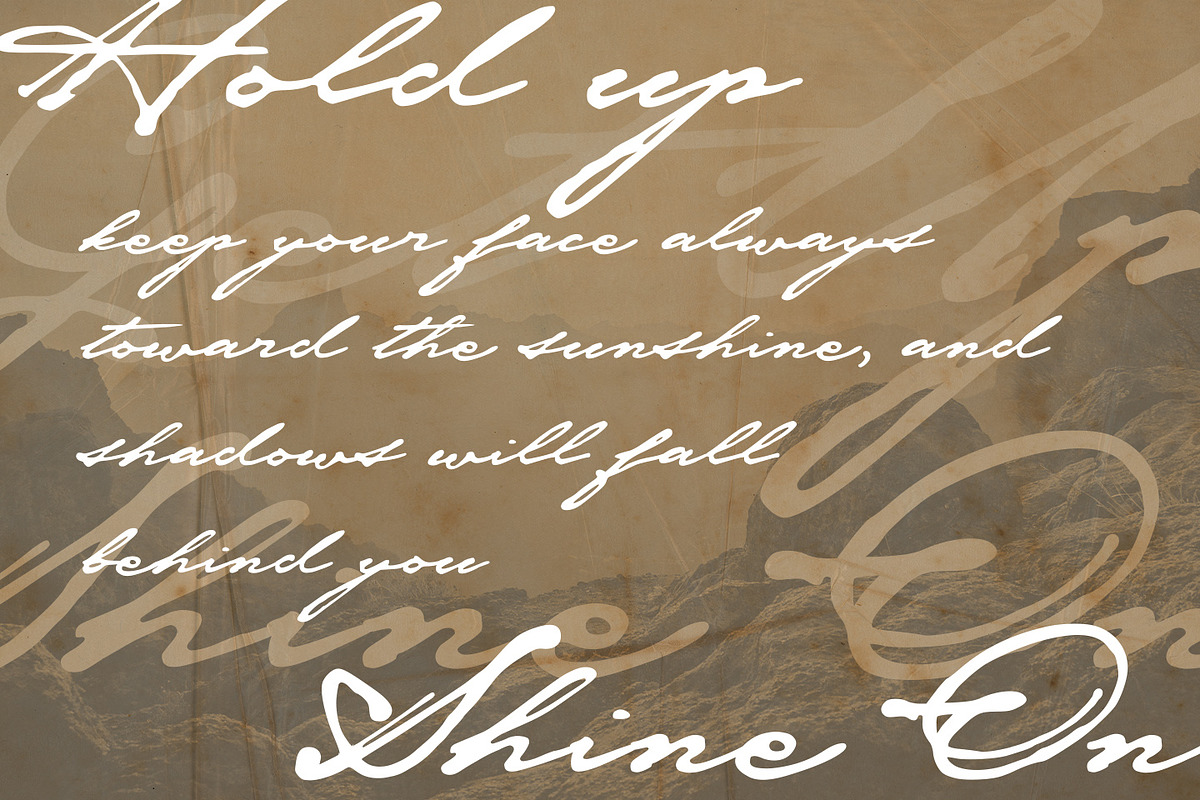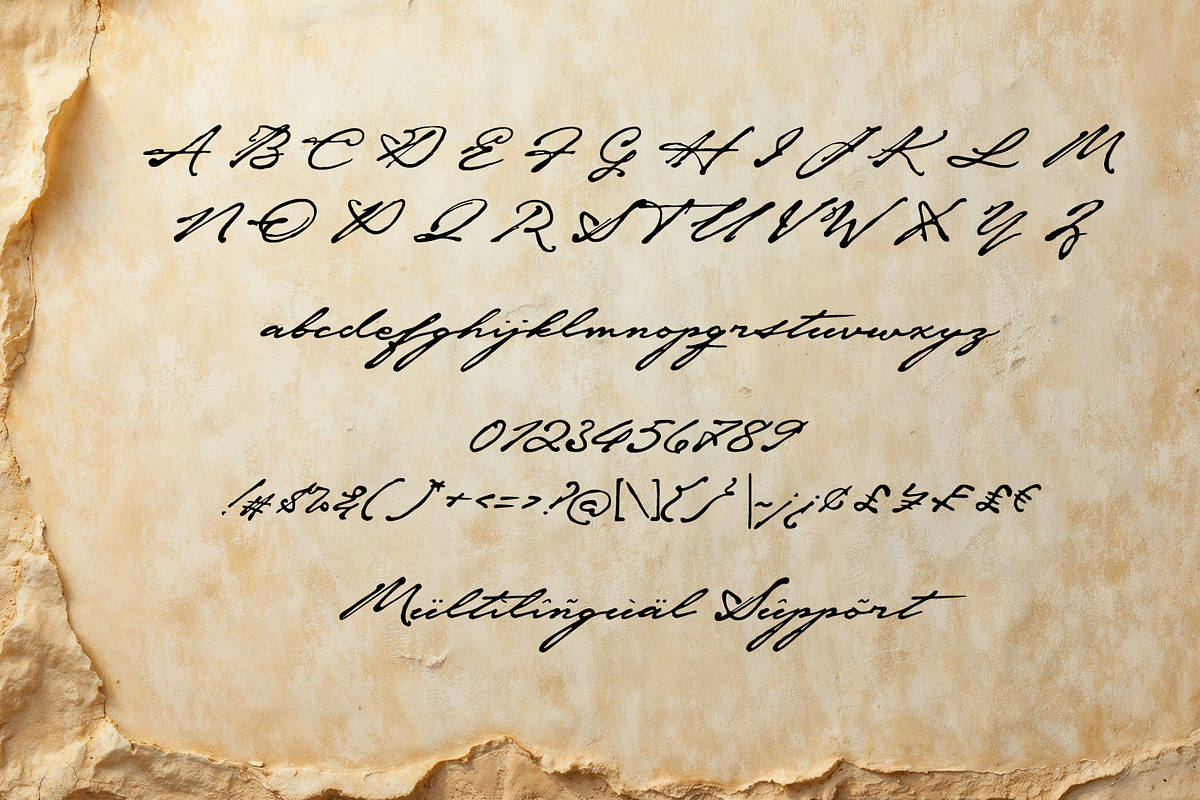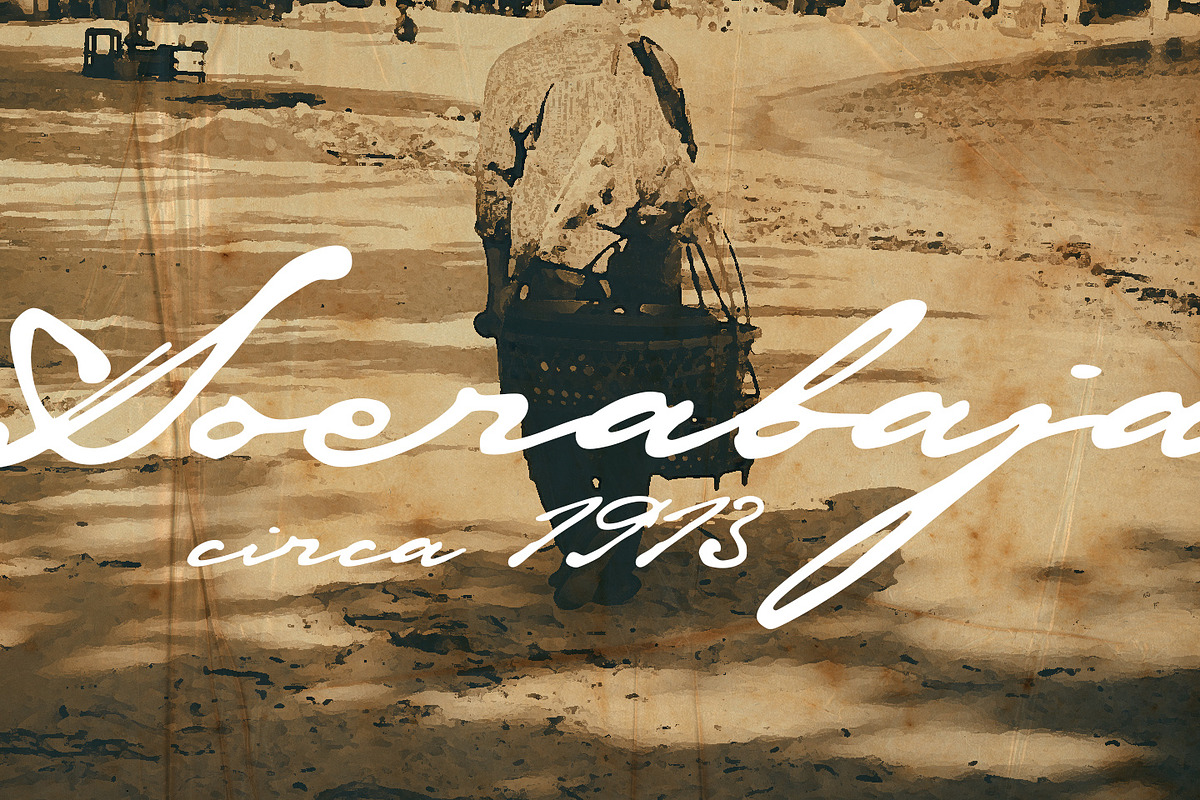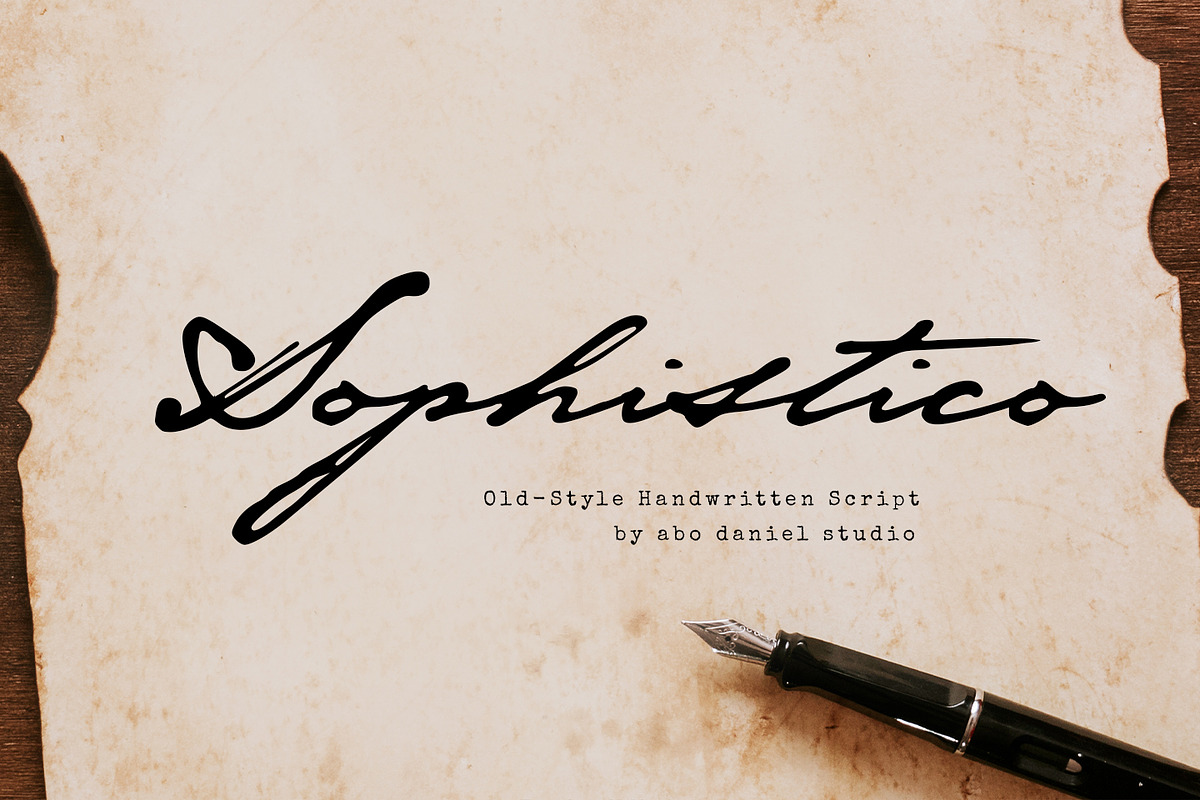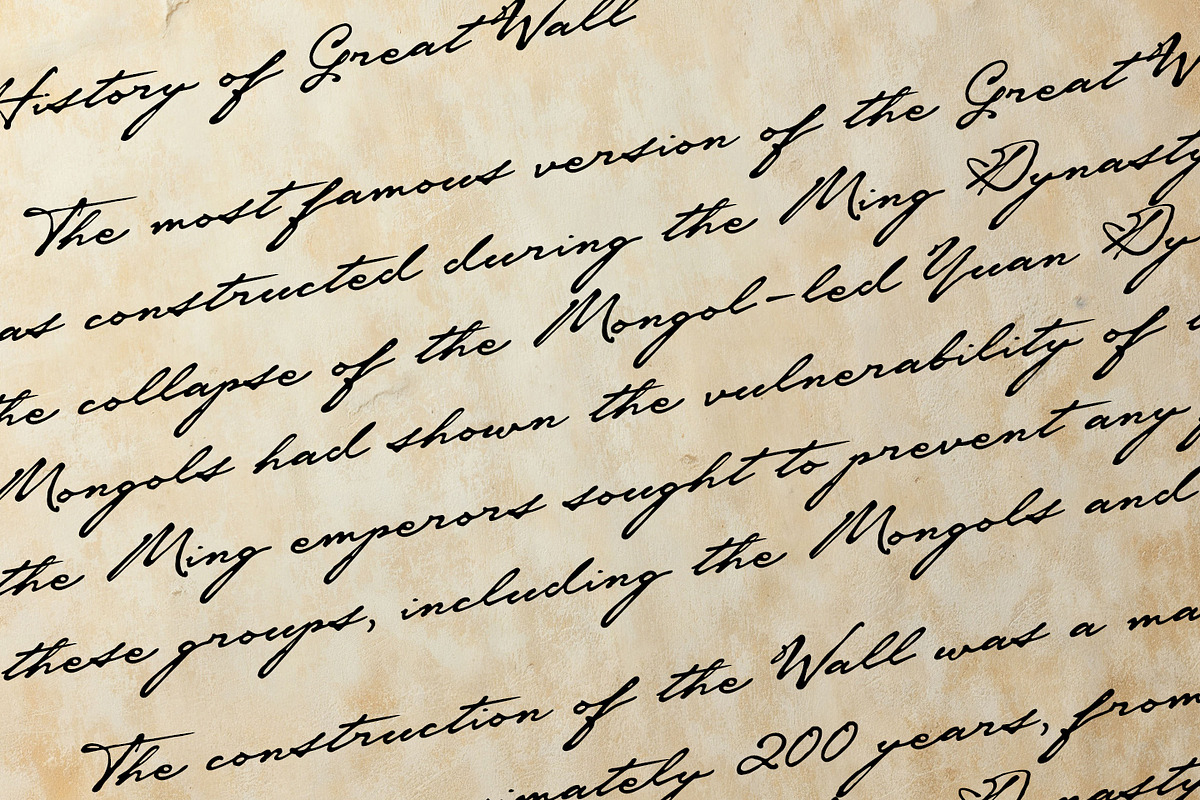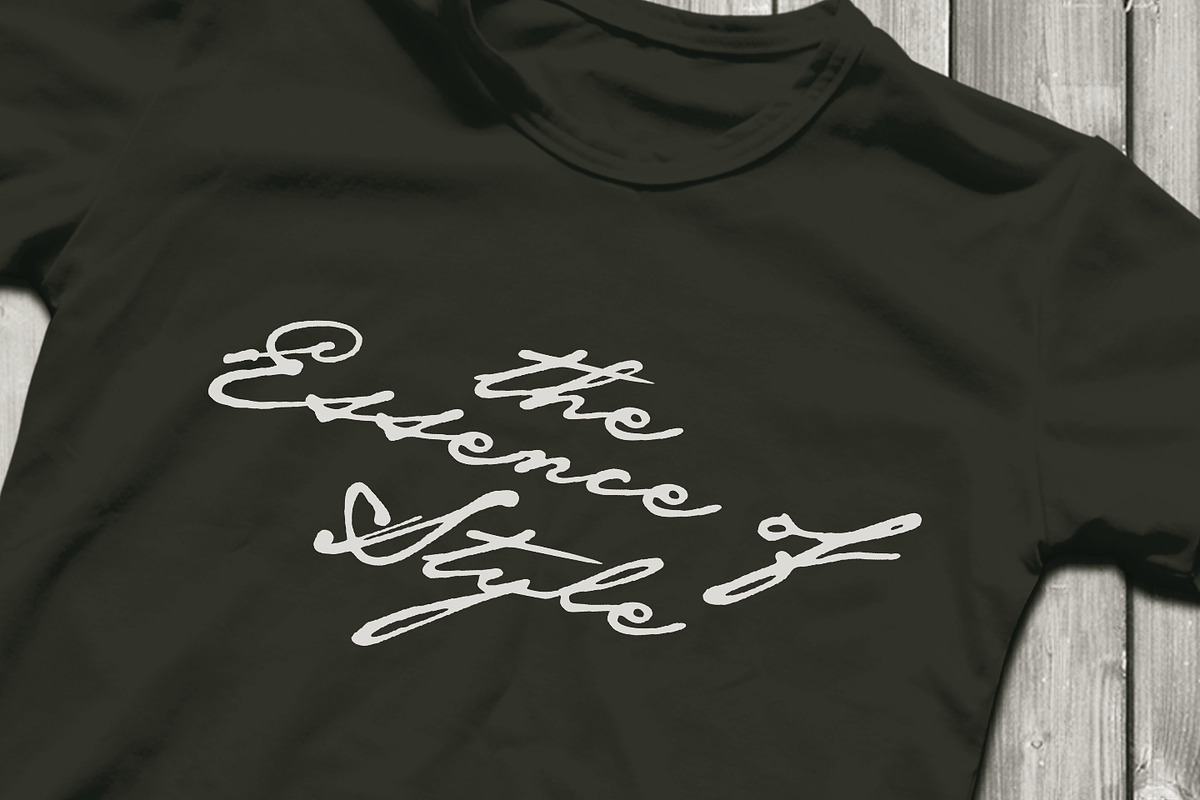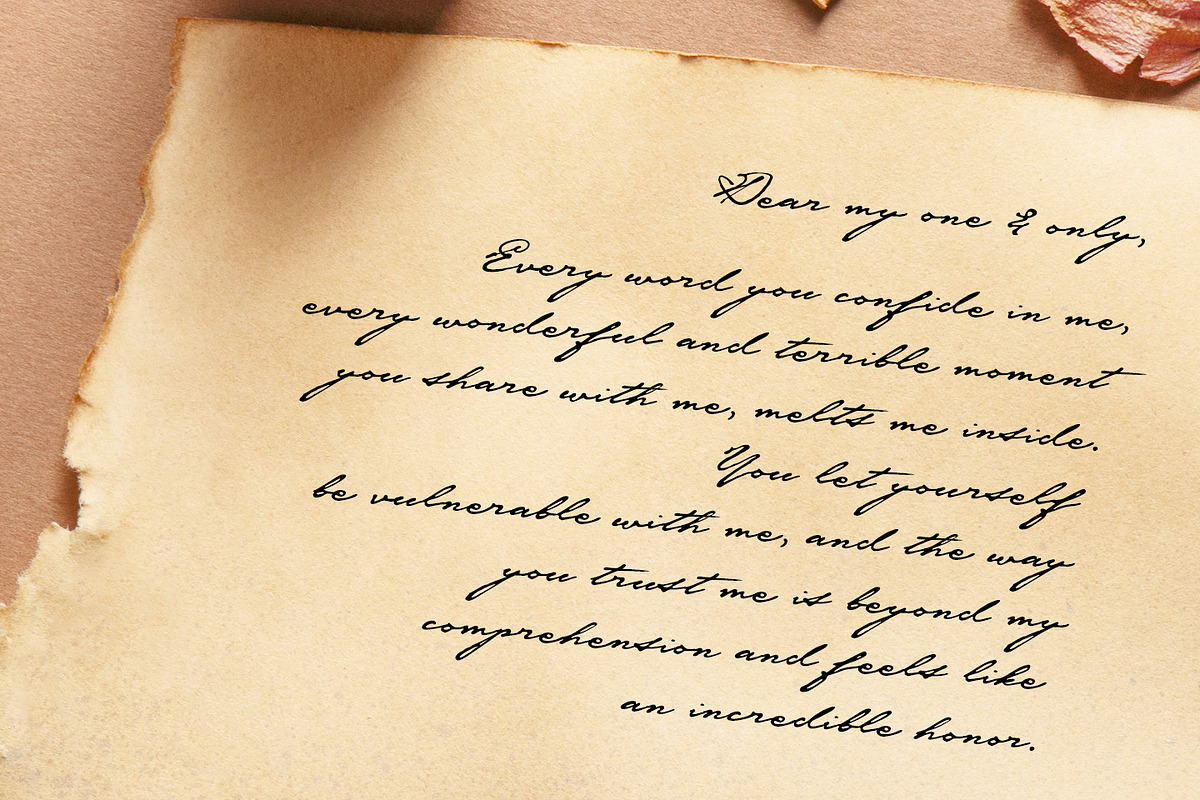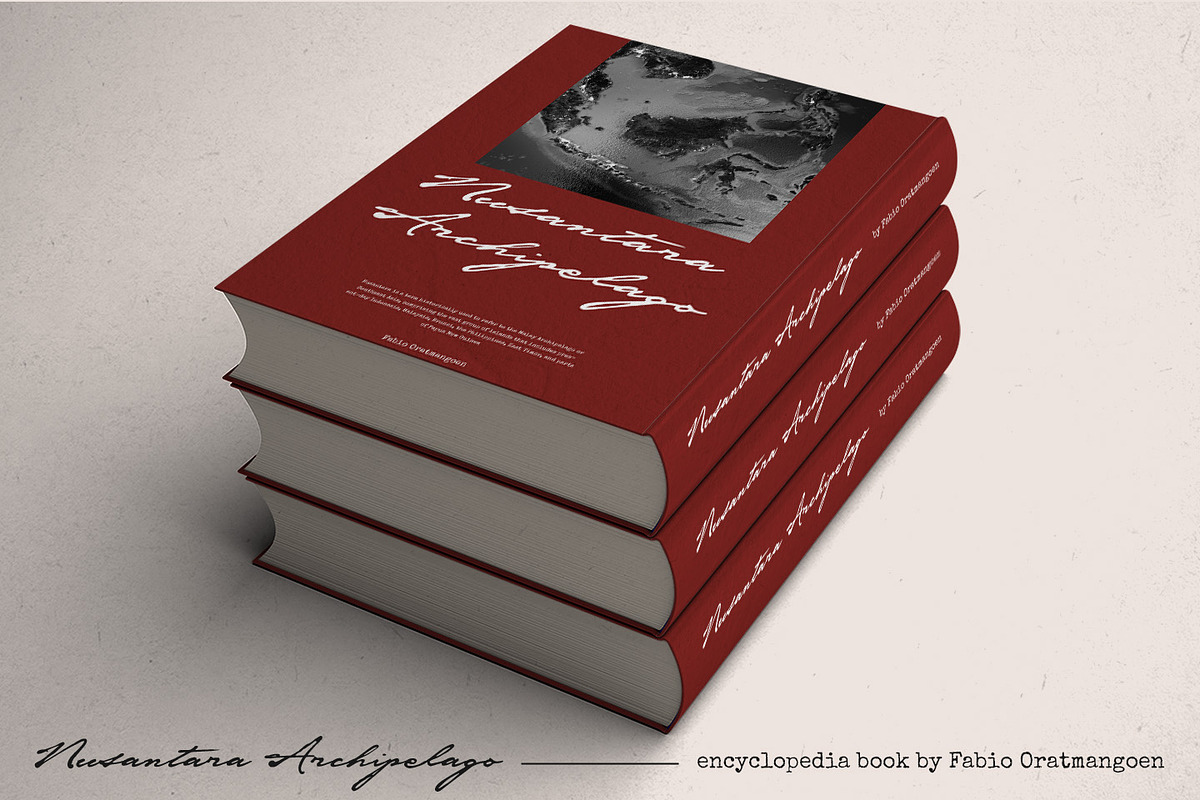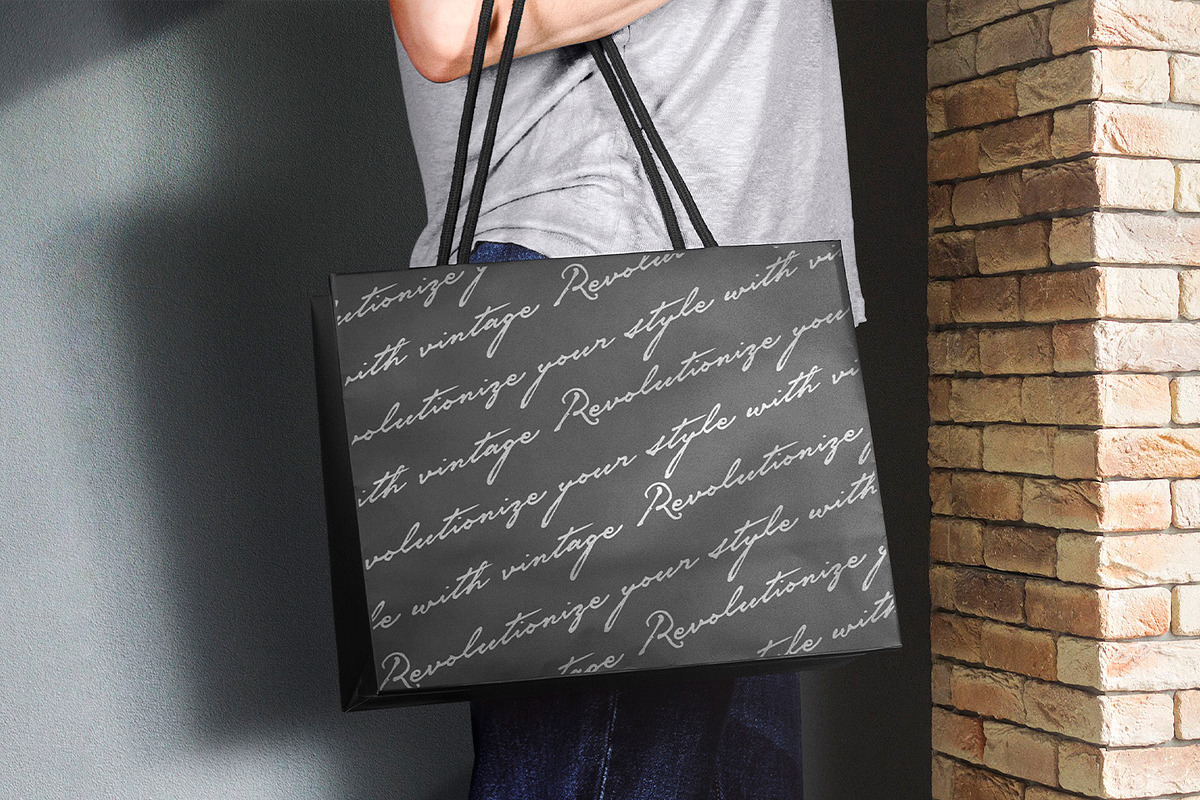
Sophistico
SOPHISTICO is an old-style handwritten script.
Sophistico is an elegant, old-fashioned handwritten font that evokes the charm of vintage calligraphy. With its flowing, cursive strokes, it mirrors the graceful, yet slightly untamed style of early 20th-century penmanship. The letters feature delicate loops and swooping ascenders, giving the typeface an airy and fluid appearance as if penned by a skilled hand with an inked quill.
The design captures both formality and warmth, making it great for personal letters, books, invitations, and projects where a touch of nostalgia and sophistication is desired. The font has a refined, timeless quality that transports the reader to a bygone era, reminiscent of handwritten notes and vintage stationery.
It is multilingual support and also contains all the characters and symbols you'll ever need, including all punctuation and numbers